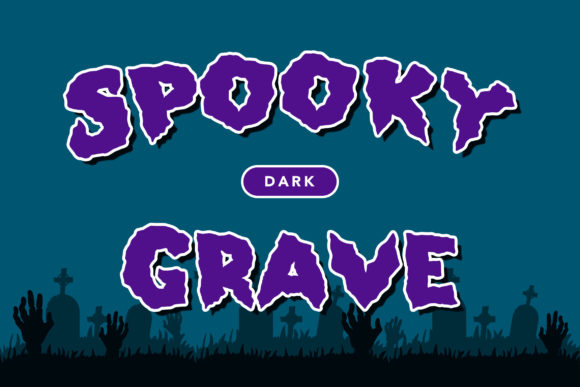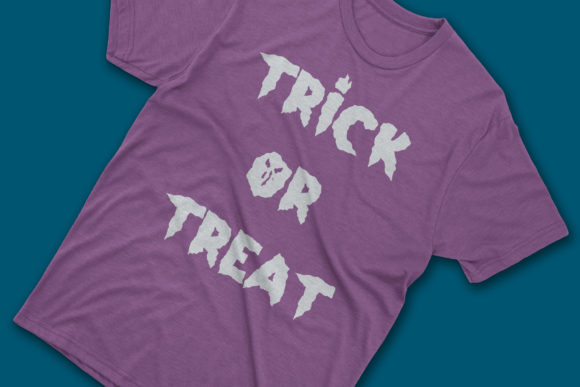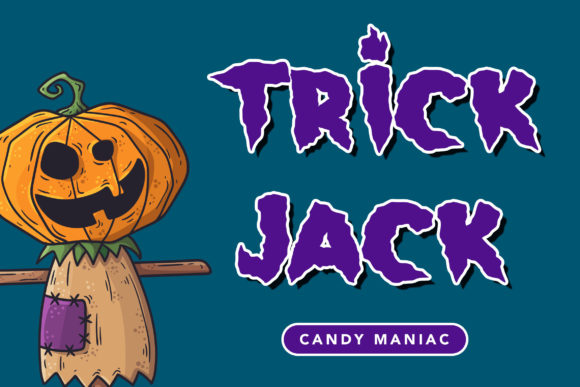
Introduction to Side of Monster Font
As a designer, there’s nothing quite like the thrill of working on a project that sparks your creativity and pushes your imagination to new heights. For me, it was a Halloween-themed craft project that brought me to the world of spooky display fonts. And among them, one font stood out – the eerie and captivating Side of Monster Font. With its horror and gothic style, this font is a perfect fit for any Halloween-related project or crafty idea.
What makes Side of Monster Font truly special is its high-quality design and transparent background, making it a valuable resource for designers. Whether you’re working on a free download project or a paid design gig, this font is sure to add a touch of darkness and mystery to your creative project. In this article, we’ll delve into the world of Side of Monster Font and explore its many uses and applications.
Key Features of Side of Monster Font
- Unique, hand-drawn design ideal for creative projects, such as posters, flyers, and advertisements.
- High-quality font with a transparent background, allowing for seamless integration with various design elements.
- Includes 1 font style, with 1 weight, and 1 language support (Latin), making it a versatile addition to any design project.
- Side of Monster Font is a unique, creative font that can add a touch of personality to any design project, making it a standout design element.
Honest Review: Side of Monster Font
As a designer, I’m always on the lookout for high-quality design resources to elevate my creative projects. Recently, I stumbled upon the Side of Monster Font, and I must say, it’s a great addition to my design arsenal.
- ✨ High-quality design that’s perfect for creating a bold and edgy look.
- ✨ Transparent background, allowing for seamless integration into any design project.
- ⚠️ Limited character set, which may not be suitable for complex or long-form text projects.
- ⚠️ Not as versatile as some other fonts, which may limit its use in certain design scenarios.
Overall, I’m impressed with the Side of Monster Font. Its high-quality design and ease of use make it a great addition to any designer’s toolkit. While it may have some limitations, it’s a fantastic resource for designers looking to add a bold and edgy touch to their creative projects.
The Side of Monster Font is a versatile design resource that can be used in various creative projects, such as:
1. Social media graphics.
2. Blog posts.
3. Brochures.
The Side of Monster Font is a high-quality design resource with a transparent background, making it easy to use in various design projects.